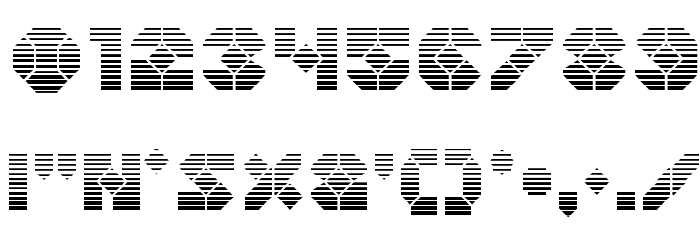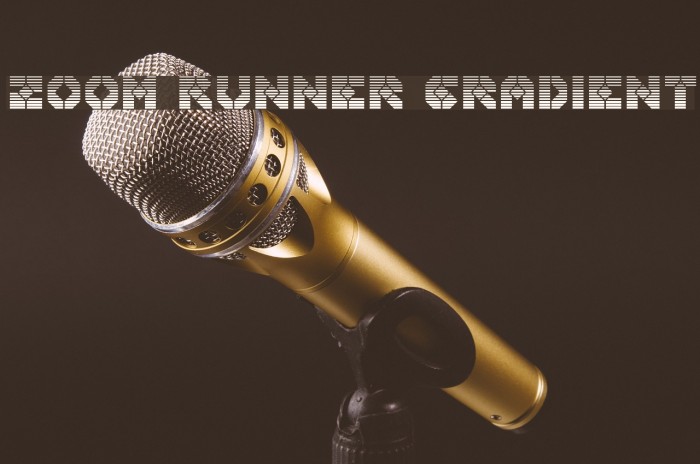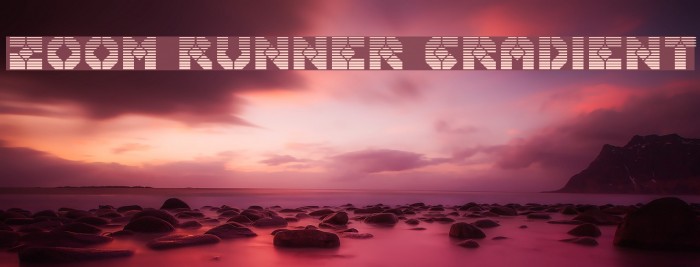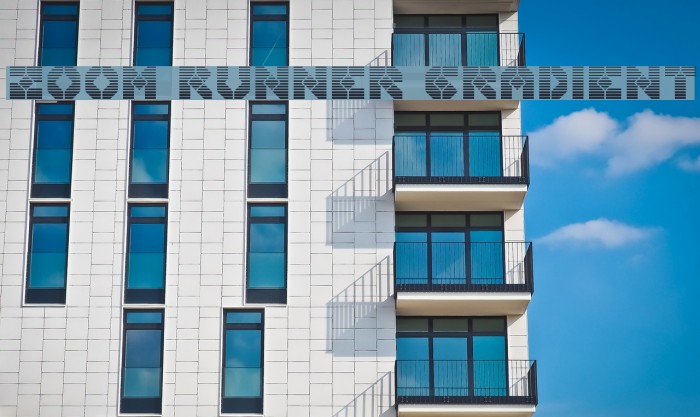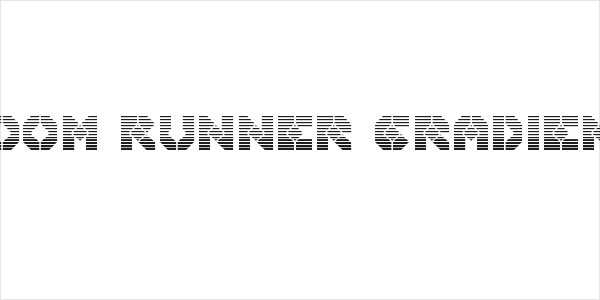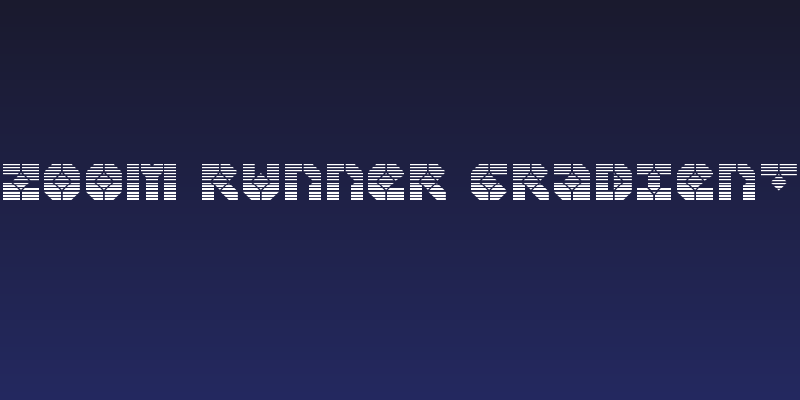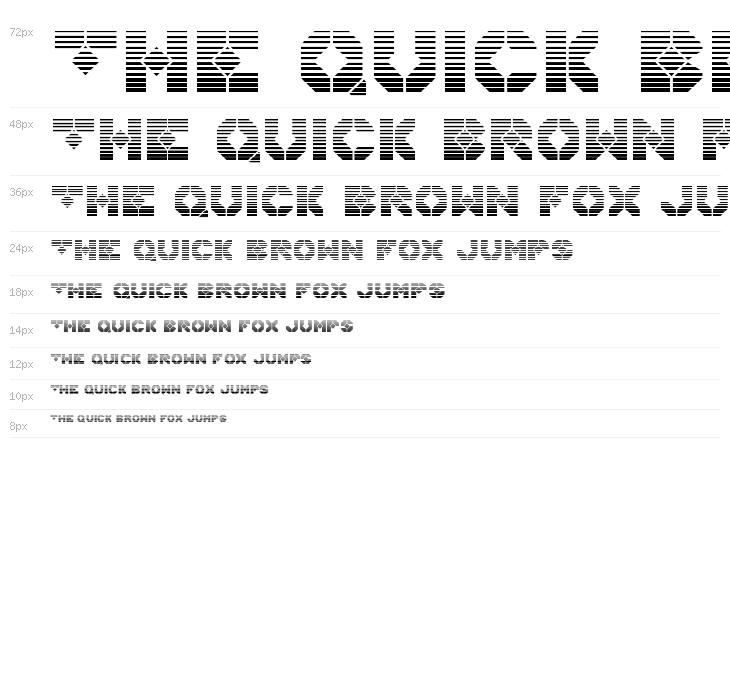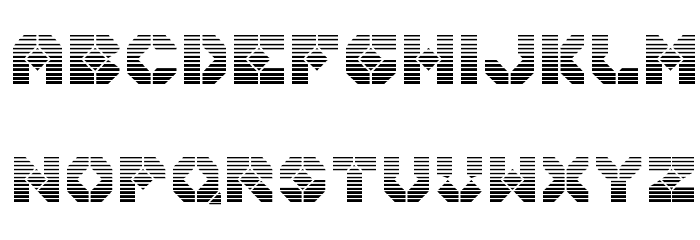
Zoom Runner Gradient Font
Zoom Runner Gradient Description
This font features a unique, futuristic design with a striped pattern running horizontally across each character. The bold, geometric shapes give it a strong presence, making it ideal for attention-grabbing designs. The uppercase and lowercase letters maintain a consistent style, with the stripes creating a sense of movement and speed. Numbers and special characters are equally bold, ensuring a cohesive look across all text elements. The font's distinct style is perfect for projects that require a modern, tech-inspired aesthetic.
| Proposed Projects | Ideal for tech branding, video game titles, futuristic posters, and digital media. |